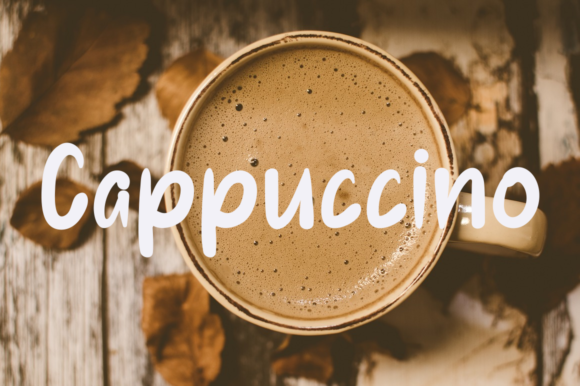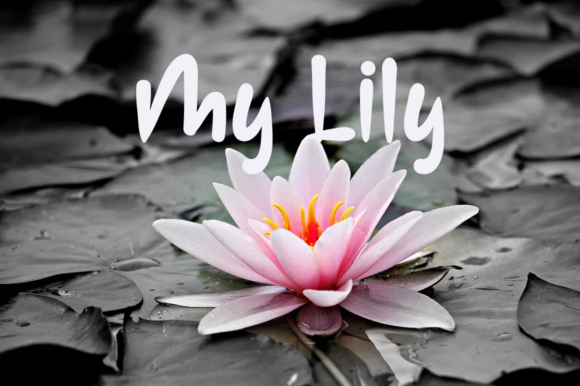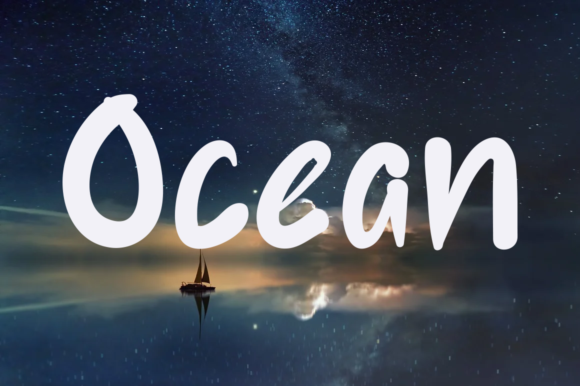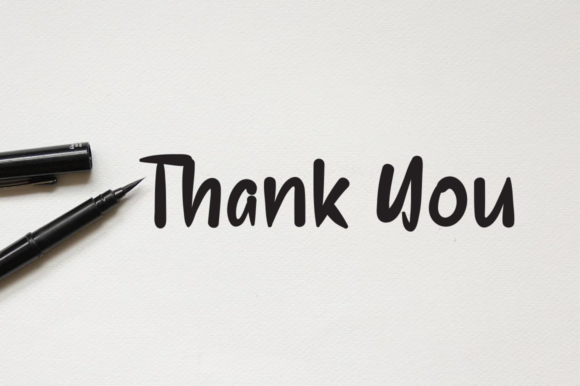
Happy Mothers Day Font: The Perfect Addition to Your Font Library
Are you a designer or crafter looking for a unique and versatile font to elevate your creations? Look no further than the Happy Mothers Day font! This fun and relaxed handwritten font is perfect for a wide range of projects, from Mother’s Day cards and gifts to everyday designs and crafts.
What Makes Happy Mothers Day Font So Special?
Happy Mothers Day font is an incredibly asset to any font library, thanks to its unique blend of playfulness and elegance. This font is designed to add a personal touch to your designs, making them stand out from the crowd. Whether you’re creating a heartfelt Mother’s Day card, a fun and quirky gift tag, or a beautiful piece of artwork, this font is sure to impress.
Key Features of Happy Mothers Day Font
- Handwritten style: Happy Mothers Day font features a beautiful, handwritten style that’s perfect for creating personal and heartfelt designs.
- Fun and relaxed: This font has a fun and relaxed vibe that’s perfect for a wide range of projects, from casual crafts to more formal designs.
- Versatile: Happy Mothers Day font can be used for a wide range of projects, including Mother’s Day cards, gift tags, artwork, and more.
- Easily readable: Despite its playful style, Happy Mothers Day font is still easily readable, making it perfect for designs that require a clear and concise message.
How to Use Happy Mothers Day Font in Your Designs
Happy Mothers Day font is incredibly easy to use in your designs, and can be incorporated into a wide range of projects. Here are a few ideas to get you started:
- Mother’s Day cards: Create beautiful, heartfelt Mother’s Day cards using Happy Mothers Day font.
- Gift tags: Add a personal touch to your gifts with custom gift tags featuring Happy Mothers Day font.
- Artwork: Use Happy Mothers Day font to add a playful touch to your artwork, from paintings to digital designs.
- Crafts: Happy Mothers Day font is perfect for a wide range of crafts, including scrapbooking, journaling, and more.
Tips for Getting the Most Out of Happy Mothers Day Font
To get the most out of Happy Mothers Day font, here are a few tips to keep in mind:
- Experiment with different colors: Happy Mothers Day font looks great in a wide range of colors, so don’t be afraid to experiment and find the perfect hue for your design.
- Pair with other fonts: Happy Mothers Day font pairs well with a wide range of other fonts, so feel free to get creative and try out different combinations.
- Use in combination with images: Happy Mothers Day font looks great in combination with images, so consider using it to add a personal touch to your photos and artwork.
In conclusion, Happy Mothers Day font is a fun and relaxed handwritten font that’s perfect for designers and crafters looking to add a personal touch to their creations. With its unique blend of playfulness and elegance, this font is sure to elevate any design and make it stand out from the crowd. So why wait? Download Happy Mothers Day font today and start creating your own unique and beautiful designs!